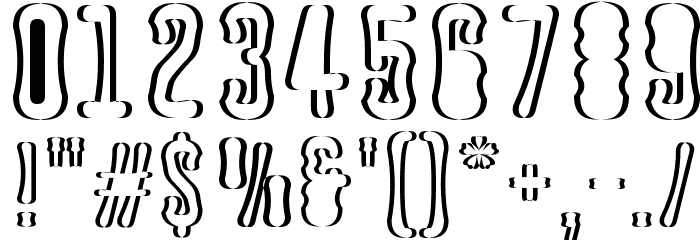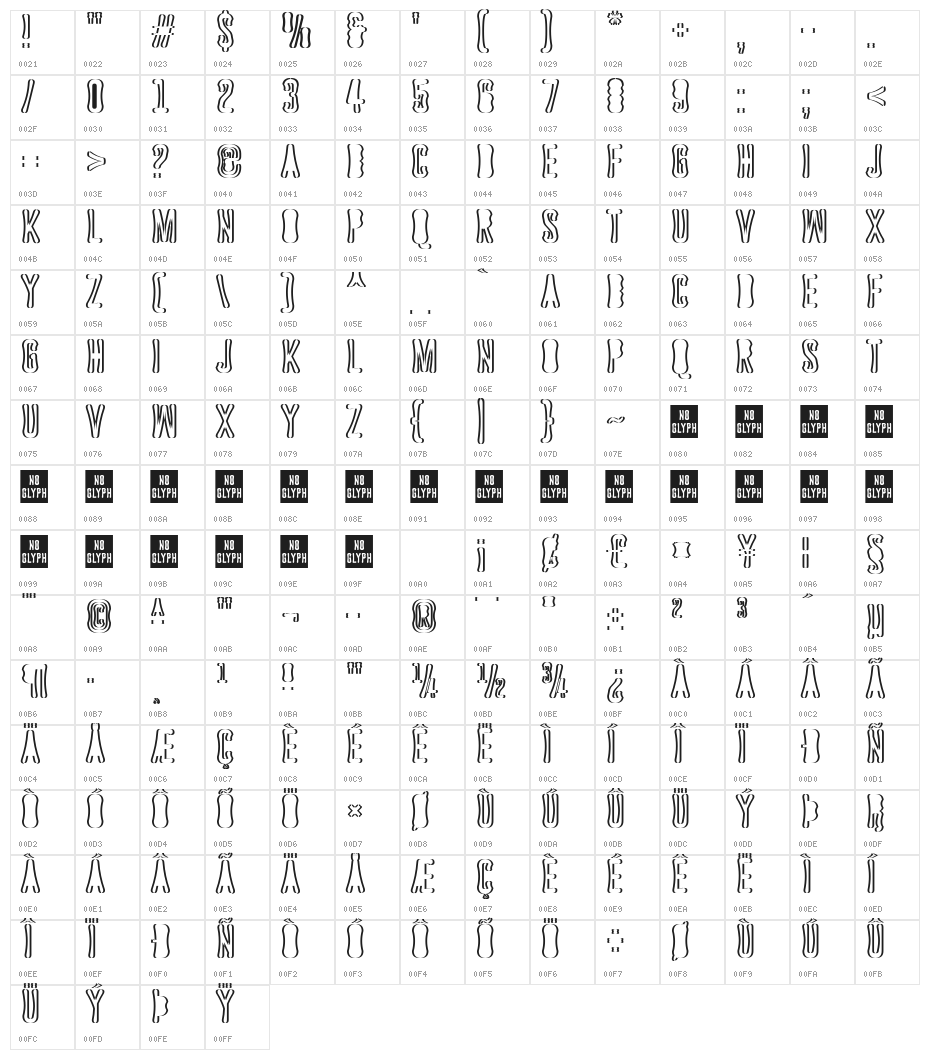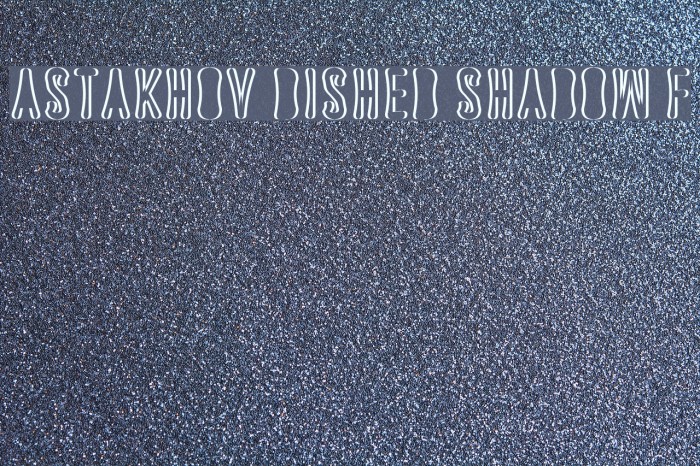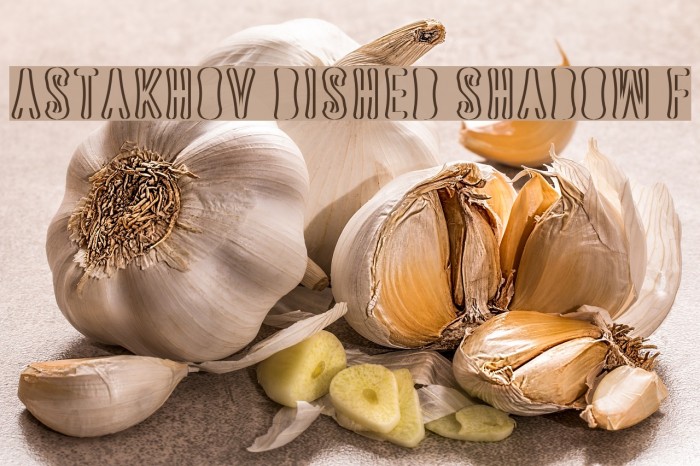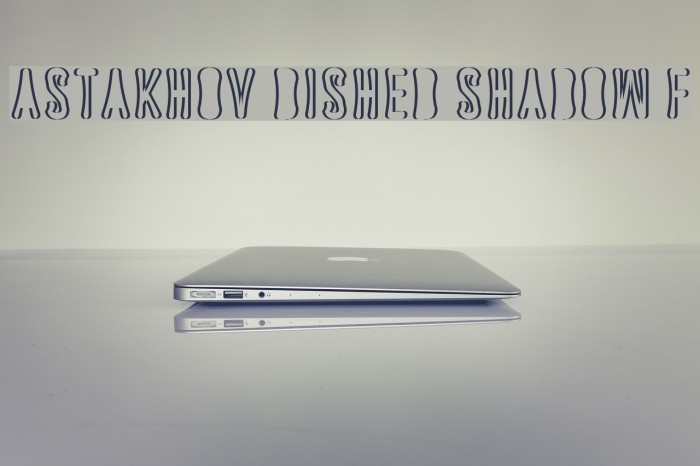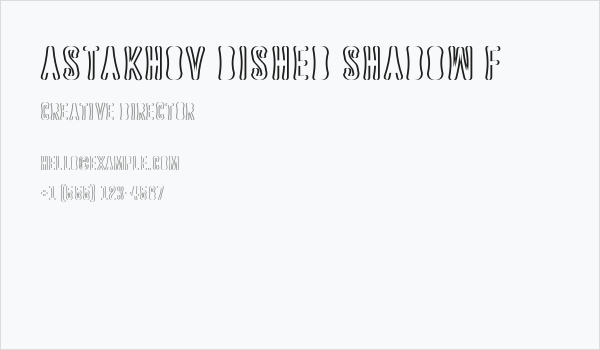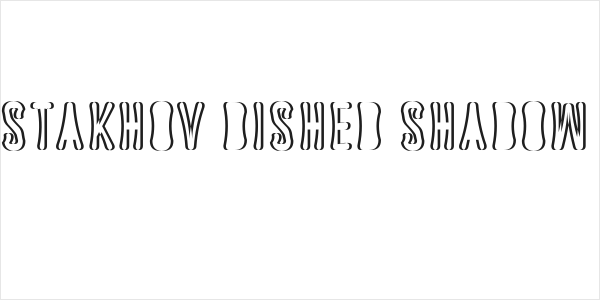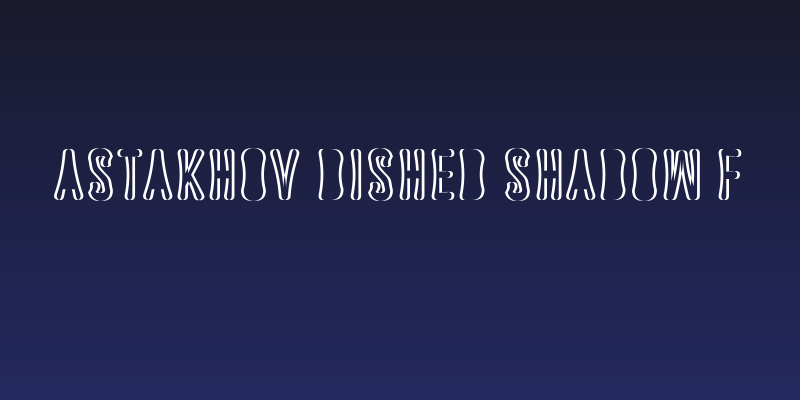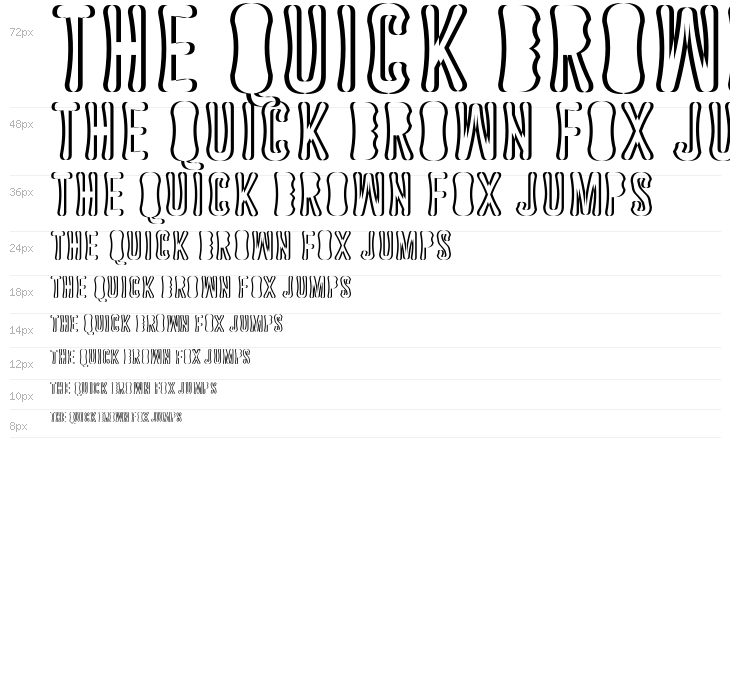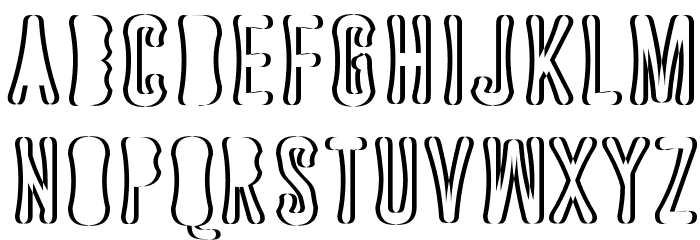
Astakhov Dished Shadow F Font
Astakhov Dished Shadow F Description
This font features a unique shadowed design that gives each character a three-dimensional appearance. The letters are bold and have a distinct, playful style with curved edges and an artistic flair. The shadow effect adds depth, making the characters stand out prominently. The uppercase and lowercase letters maintain a consistent style, while the numbers and special characters are designed to complement the overall aesthetic. This font is ideal for creative projects that require a touch of whimsy and boldness.
| Proposed Projects | Ideal for posters, headlines, branding, and any design project that requires a bold and artistic touch. |